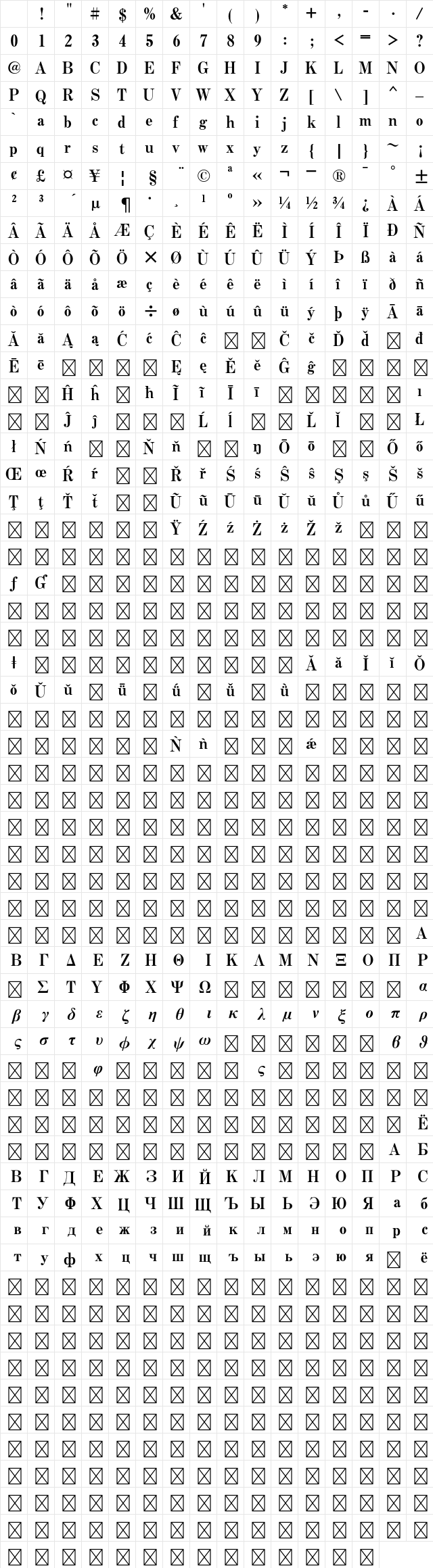
A-OTF Midashi Min MA31 Pr5 MA31
Style: MA31
Design Context for A-OTF Midashi Min MA31 Pr5
A-OTF Midashi Min MA31 Pr5 is a composed and adaptable typeface that performs quietly and consistently across a wide range of design contexts.